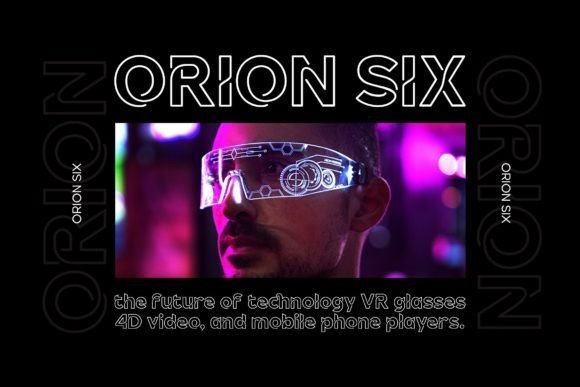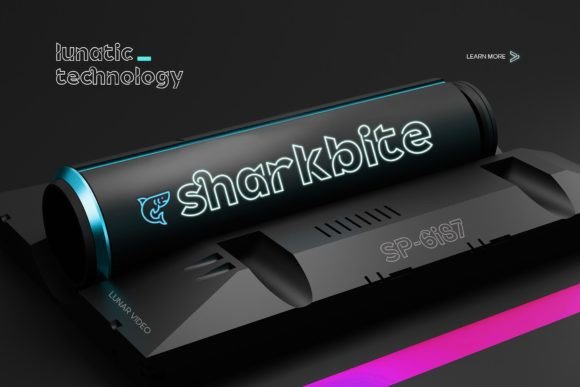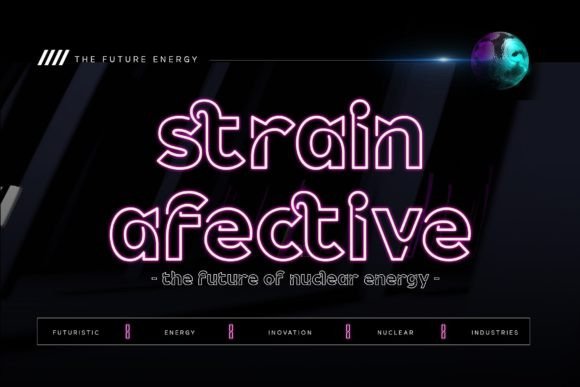
Spectron Font: Futuristic Typography for Sci-Fi & Logo Design
About the Spectron Font
Presenting Spectron Font, a unique and stylish typeface that will make your work stand out. Spectron is a font inspired by the visual of technology that we can find in logos, sci-fi movies, games, and the present gadgets. Designed with minimalist style and unique letterforms, a perfect choice to use on logos, labels, posters, packaging, books, movies, presentations, games, and much more! Is complete with an elegant touch that will give your design a more futuristic and dynamic look.
Spectron Font Usage Examples
Spectron Font Example